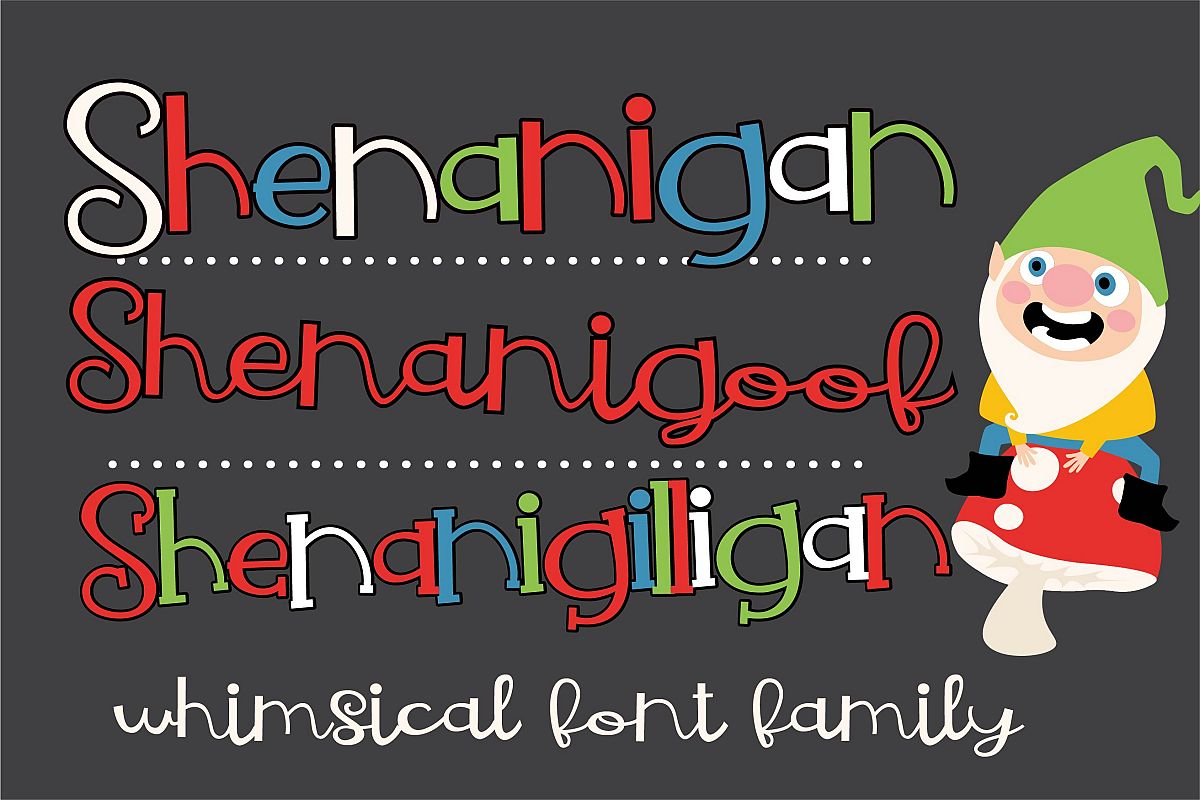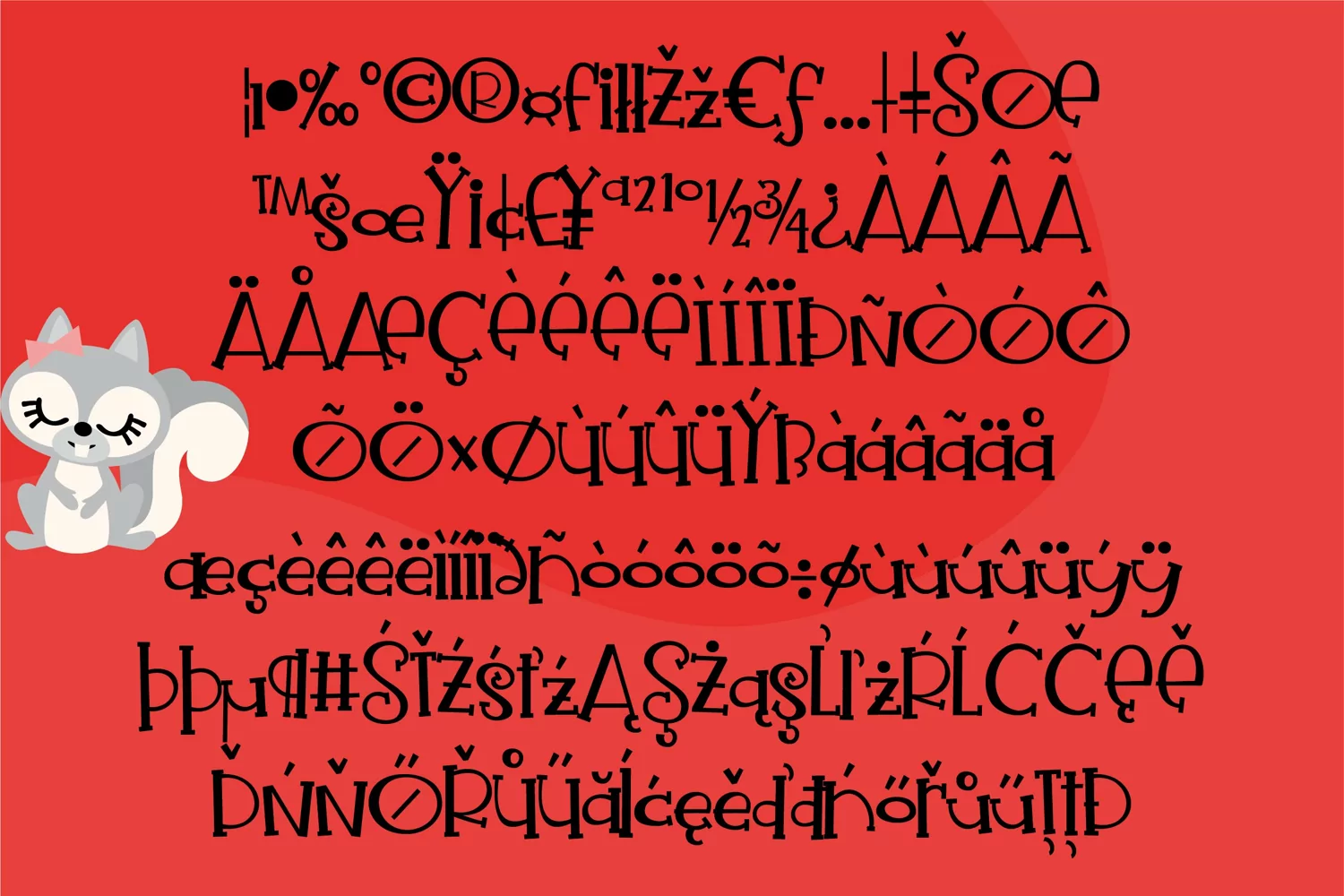
This whimsical and fun font family are great fonts when you want to add a little silliness to a project. PN Shenanigan is the whimsy sans-serif version. PN Shenanigilligan is the whimsy serif version while PN Shenanigoof is the silly quasi-script version.
All three fonts includes:
- Numbers and Symbols
- International Characters